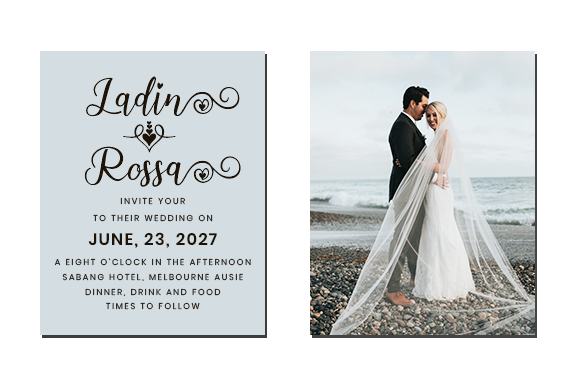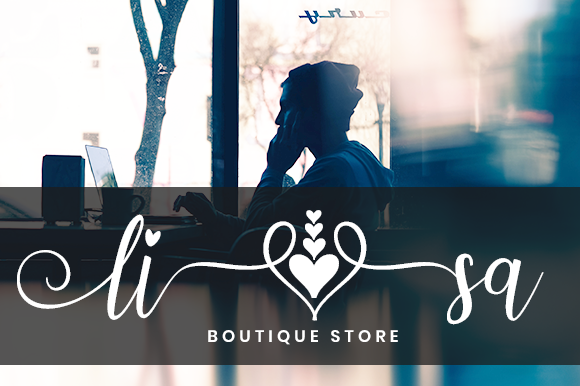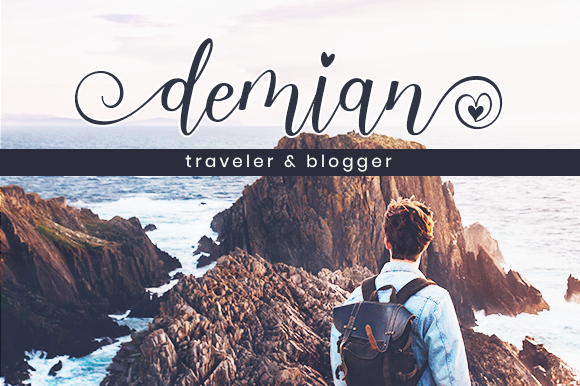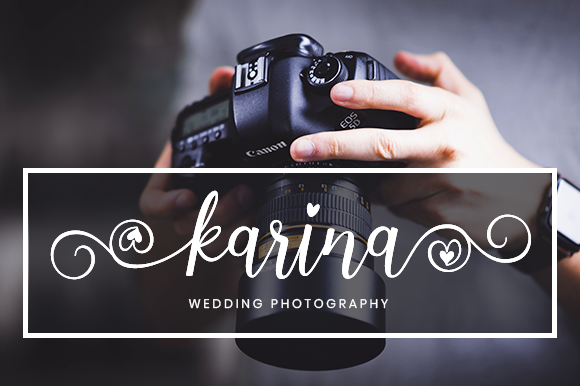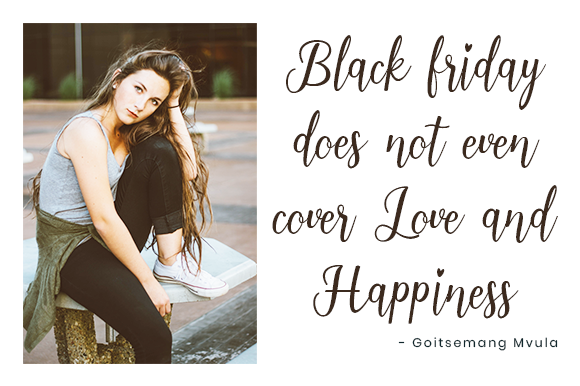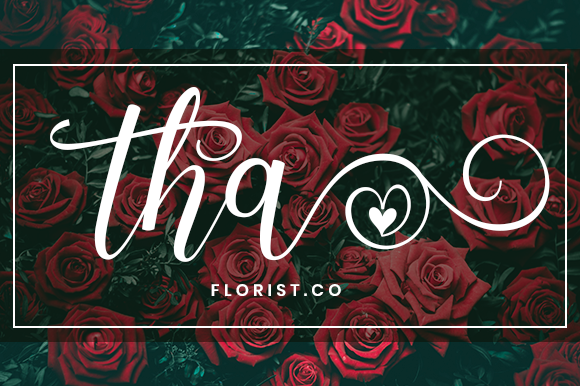
Introduction to Hello Dude Font
Remember the moment when you stumbled upon the perfect design element that elevated your creative project? For designers, it’s a moment of pure joy – the kind that sparks inspiration and fuels imagination. For me, that moment came when I discovered the Hello Dude Font. Its beautiful script style, paired with love-themed swashes, adds a touch of romance to any design, making it a valuable resource for creatives.
As a high-quality design resource, the Hello Dude Font is perfect for designers looking to add a personal touch to their work. With a free download available, you can experiment with this lovely font in your next creative project. Plus, its transparent background makes it easy to combine with other design elements, giving you endless possibilities for creative expression.
Key Features of Hello Dude Font
- High-quality design with a modern, casual feel, perfect for creative projects.
- Designed to be highly legible, with clear and crisp typography suitable for a wide range of creative projects.
- Features a unique, hand-drawn style that adds a touch of personality to any design.
Honest Review: Hello Dude Font
I recently came across the Hello Dude Font, a free download that caught my attention. As a designer, I appreciate high quality design resources that can elevate a creative project. This font definitely fits the bill.
Here’s what works well: ✨ It’s got a fun, playful vibe that’s perfect for projects that need a lighthearted touch. The font is also highly customizable, making it easy to adjust the size, color, and spacing to fit your design needs. Additionally, the transparent background makes it easy to layer over other design elements.
However, there are some limitations: ⚠️ The font is a bit limited in terms of character set, which can make it difficult to use for projects that require a lot of text. Additionally, the font may not be suitable for professional or formal projects, as it’s a bit too casual.
Overall, I’d recommend the Hello Dude Font for personal or creative projects where you want to add a bit of personality and whimsy. While it’s not a replacement for a high-end font, it’s a great free download that can add some flair to your designs.
- Fun, playful vibe
- Not suitable for formal projects
Hello Dude Font is ideal for a wide range of creative projects, including social media graphics, blog posts, and marketing materials. Its unique design makes it perfect for adding a touch of personality to your content. Whether you’re a professional designer or a hobbyist, this font is a valuable addition to your design resource library.